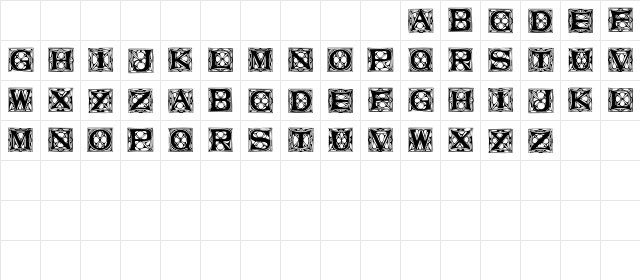
AromatCapsSSK Regular
Design Context for AromatCapsSSK Typeface
AromatCapsSSK is a composed and adaptable typeface that performs quietly and consistently across a wide range of design contexts.